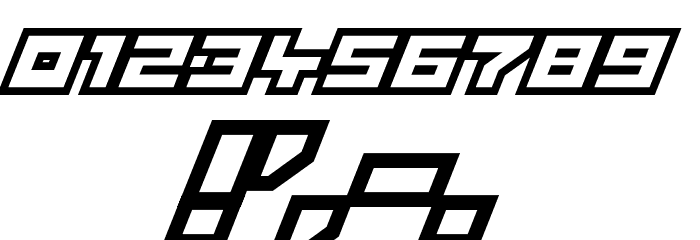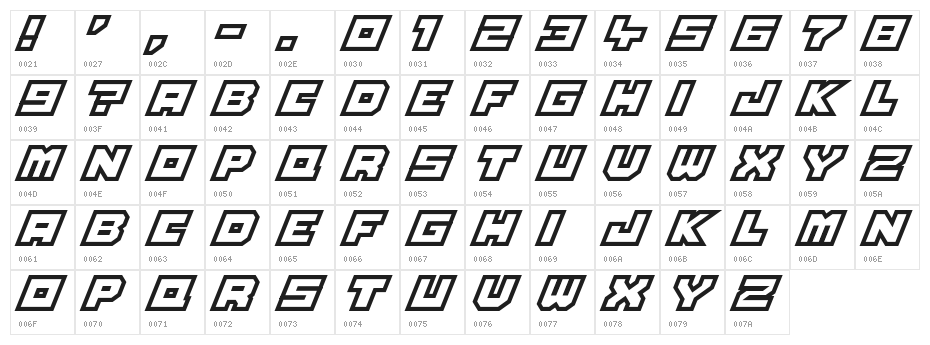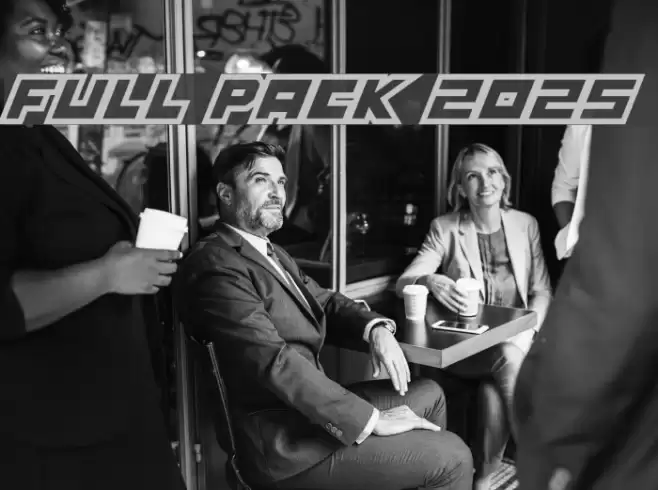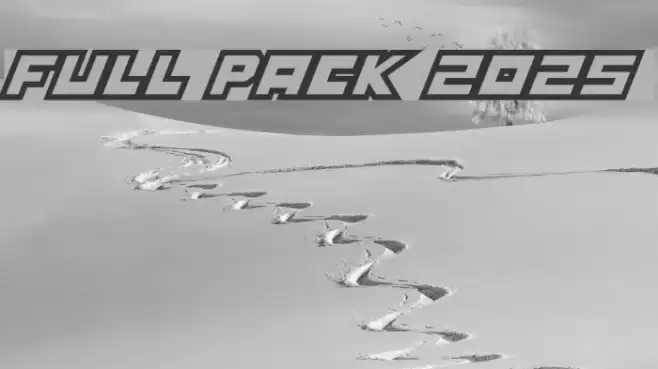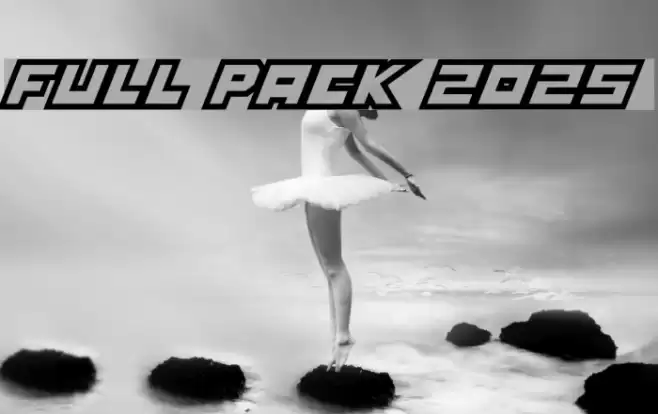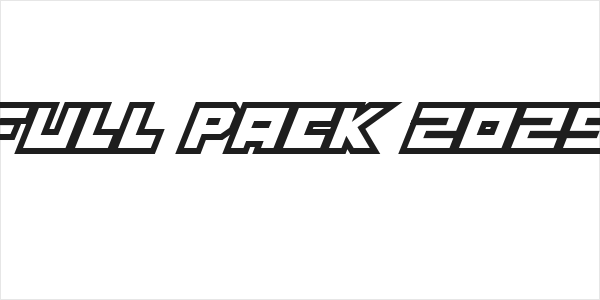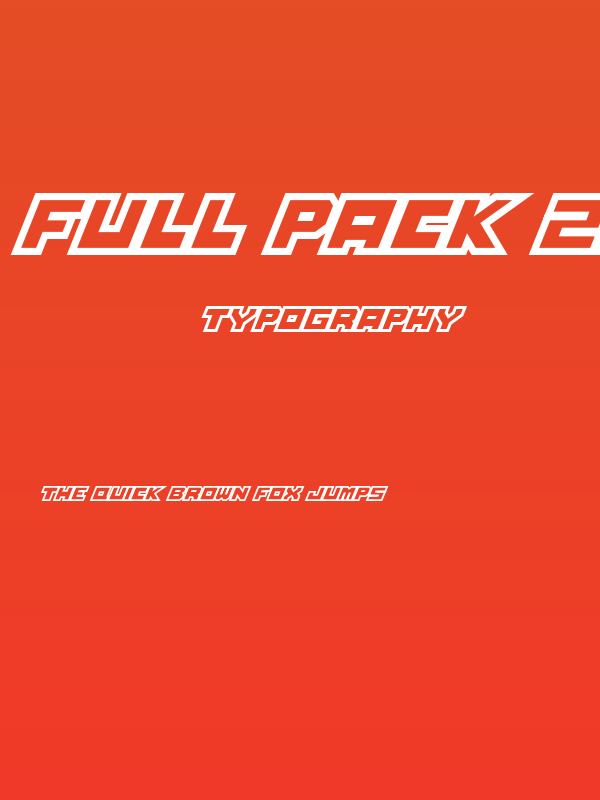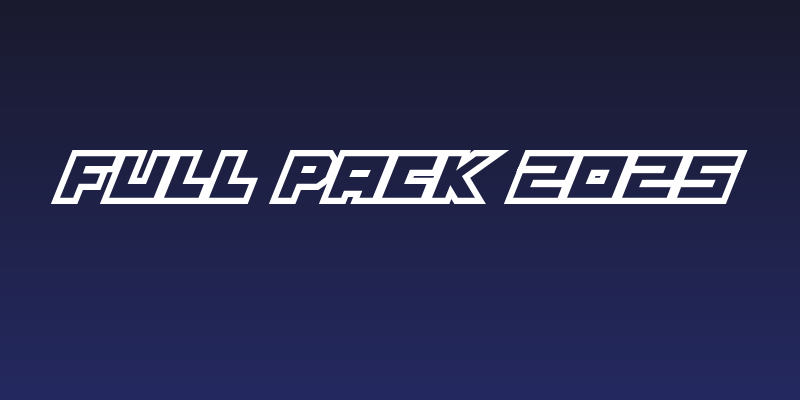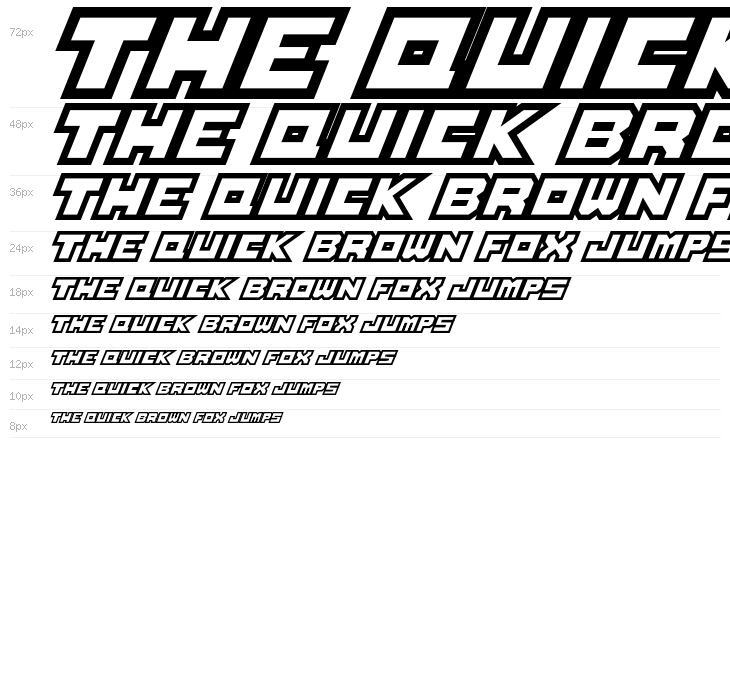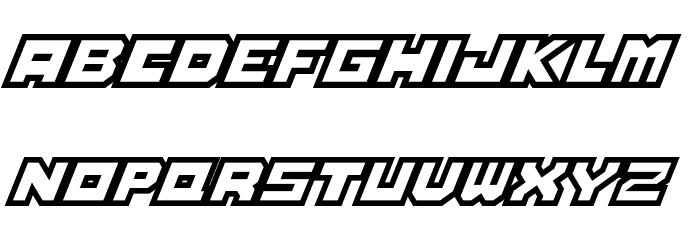
Full Pack 2025 Font
Full Pack 2025 Description
This font features a bold, geometric style with a strong presence. The characters are outlined, giving them a three-dimensional effect that adds depth and impact. The angular design and sharp edges convey a sense of modernity and dynamism, making it ideal for attention-grabbing headlines or logos. The uppercase letters are consistent in height, while the numbers maintain the same bold aesthetic. The special characters are designed to match the overall style, ensuring cohesion across all elements. This font is perfect for projects that require a futuristic or tech-inspired look.
| Proposed Projects | Ideal for futuristic branding, tech-related designs, video game titles, and dynamic posters. |